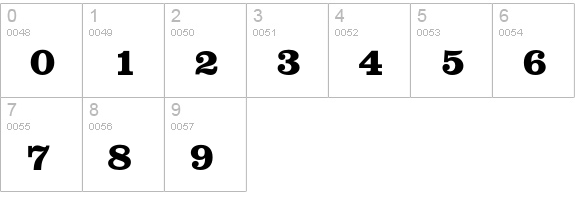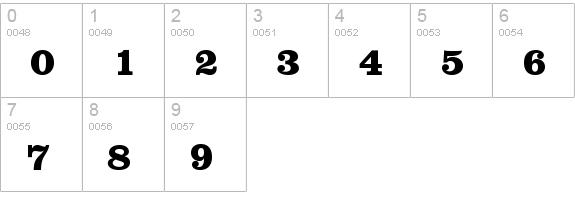
ClarendonEF-ExtraBold Font Details
ClarendonEF-ExtraBold is an extra-heavy, attention-grabbing variant in the ClarendonEF typeface family \xE2\x80\x94 well suited to high-impact headlines, posters, and bold branding.
Introducing ClarendonEF-ExtraBold, a bold and commanding font that exudes strength and authority. With its thick strokes and sturdy appearance, this font is perfect for making a bold statement in any design project. Whether you're creating a striking headline or designing a powerful logo, ClarendonEF-ExtraBold will ensure that your message stands out. What's even better is that ClarendonEF-ExtraBold is available for free download at FontsMarket.com. This means you can easily access this impressive font and incorporate it into your projects without any cost. Don't miss out on the opportunity to enhance your designs with the impactful presence of ClarendonEF-ExtraBold. Download it now and elevate your creations to new heights.